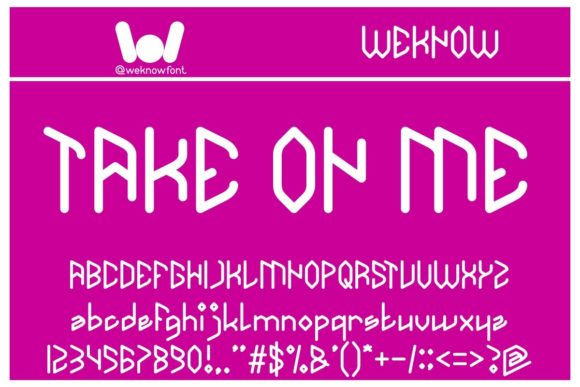
Prepare to embark on a captivating typographic journey with our extraordinary Take on Me font. This enchanting display font will ignite your creativity and leave an unforgettable impression on your audience.
Crafted by the renowned weknow, Take on Me is a symphony of whimsical charm and undeniable originality. Its playful yet sophisticated curves dance across the page, evoking a sense of nostalgia and whimsy. With its unique character, this font will make your designs stand out from the ordinary and forge an emotional connection with your viewers.
Whether you're designing striking logos, captivating headlines, or eye-catching social media posts, Take on Me is your perfect companion. Its versatility knows no bounds, empowering you to create designs that resonate with your brand's personality and captivate your target audience.
Unleash your imagination and let Take on Me guide you to typographic greatness. Its boundless potential will ignite your creativity and elevate your designs to new heights. Join the creative revolution today and immerse yourself in the world of Take on Me.